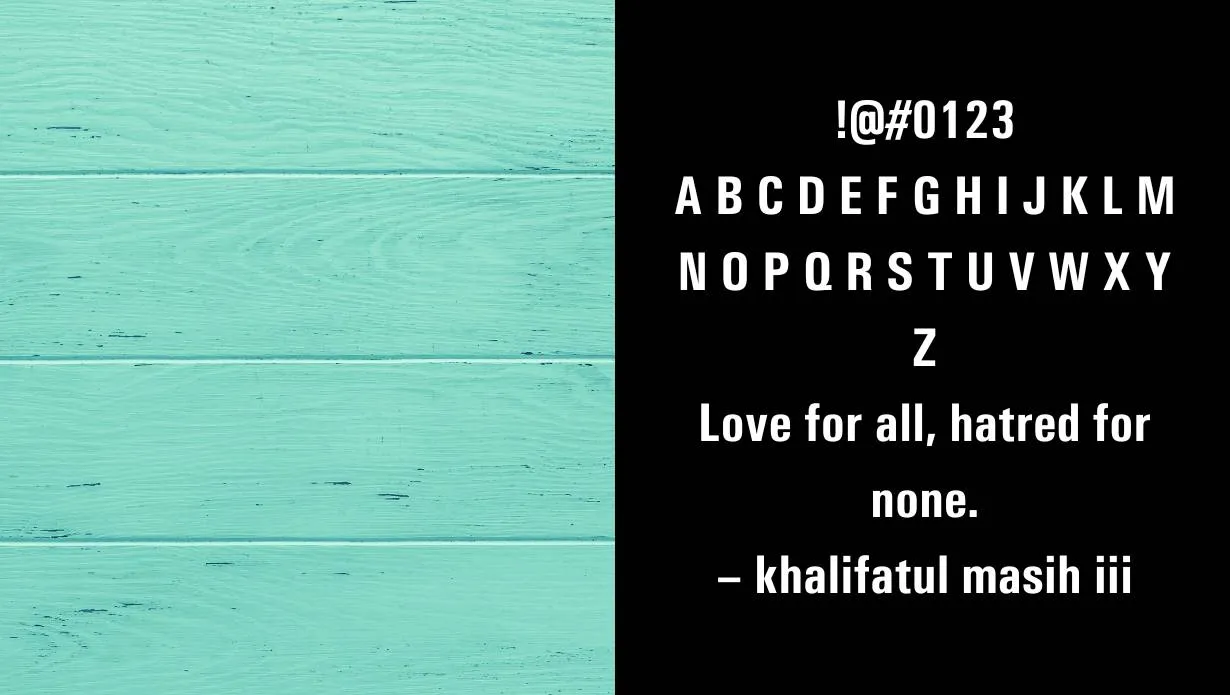
DavidsTea is a sans-serif typeface that was created for the Canadian tea company David’s Tea. The font was designed to be used on the company’s website and packaging and has since been made available for public use.
The typeface is a sans-serif font that features strong geometric shapes and clean lines. The font is available in two weights, regular and bold. The regular weight is best suited for body copy, while the bold weight can be used for headlines or other display purposes. This extraordinary supreme font that is similar to comes in stunning features.
DavidsTea Font Family